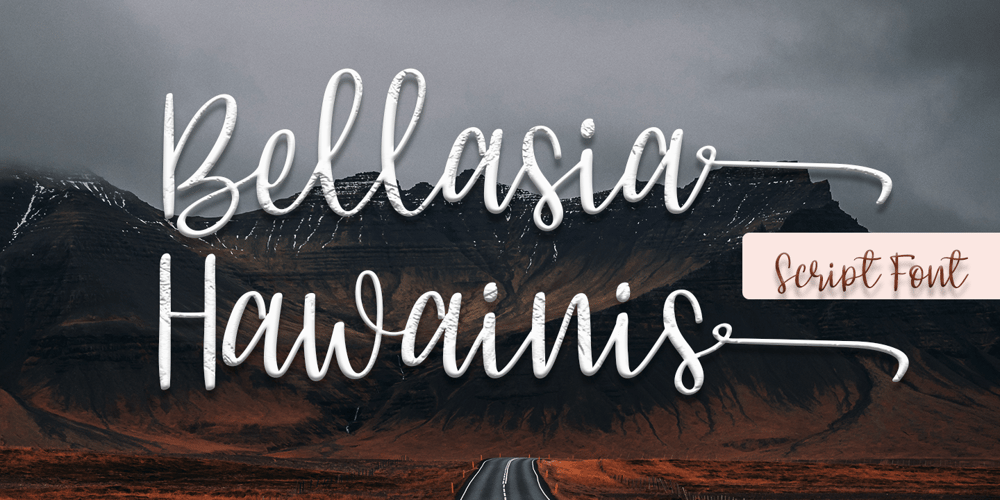
Bellasia Hawainis Font Family was designed by Inermedia Studio and published by Inermedia Studio. Bellasia Hawainis contains 1 styles and family package options. Introducing the beautiful and delicate handmade Bellasia Hawainis Font. Fonts designed for your design and business needs. It has beautiful and charming letters with more than 150 characters. Subtle curves will make your business stand out even more in the market. A few Glyph and Swash will add a punch to your masterpiece.